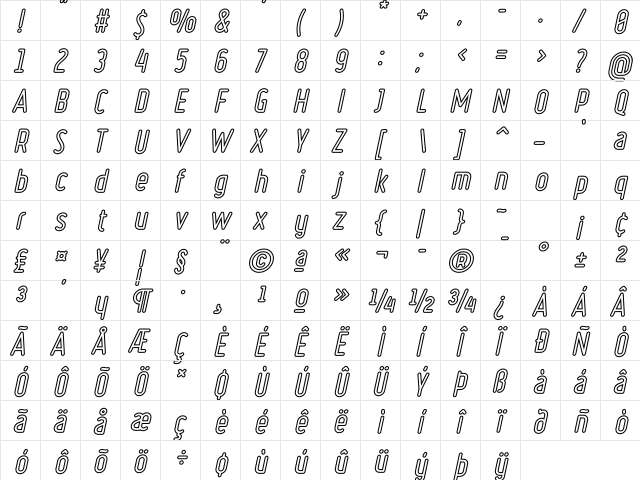
Ruler Volume Outline Bold Italic Font Preview
| Foundry | Levi Szekeres |
| Designer | Levi Szekeres |
Design Context for Ruler Volume Outline Typeface
Ruler Volume Outline is built around its visual character rather than neutral utility — its distinctive forms are designed to make an impression at display sizes. The dynamic lean of this cut emphasises speed and emphasis in any layout. The heavy weight commands attention and anchors typographic hierarchies.
Font Pairing: Pair with a clean neutral sans-serif for body copy to let Ruler Volume Outline's character lead without overwhelming the composition.
Pro Tip: Use Ruler Volume Outline exclusively at display sizes — it was designed to be seen, not read at length. Let a neutral companion handle body copy.